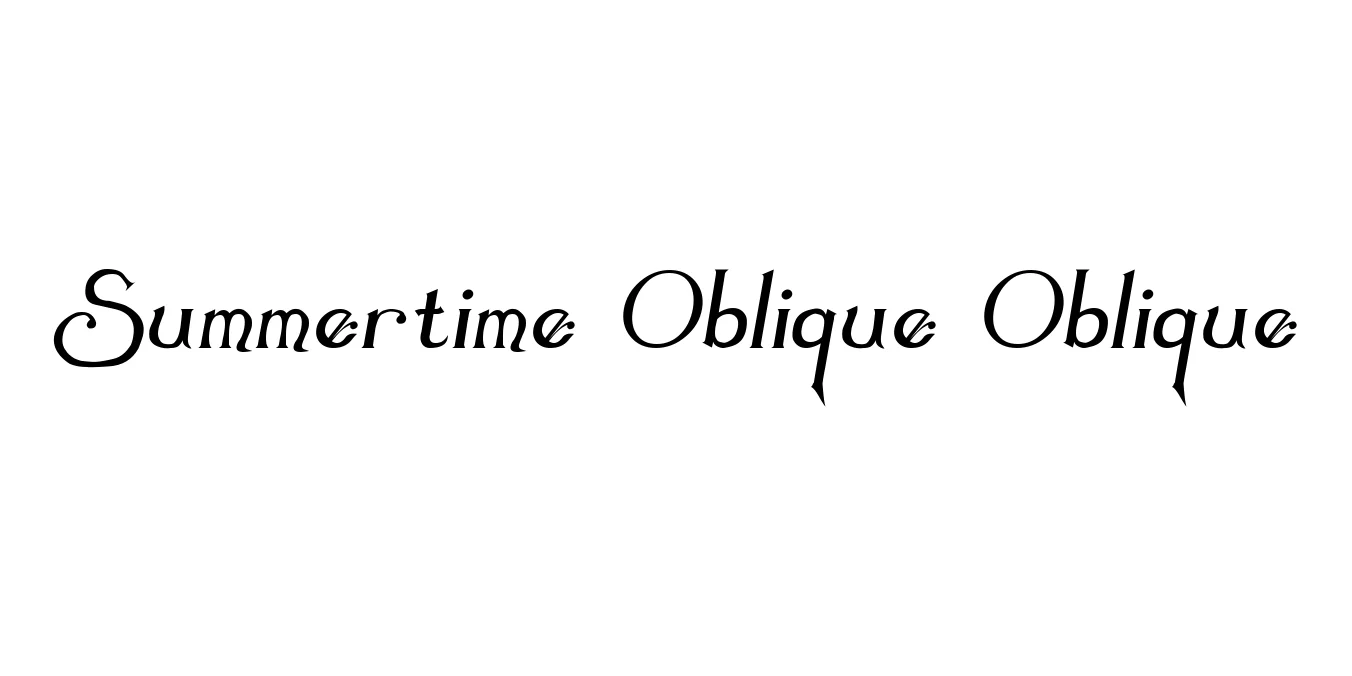
Summertime Oblique
Designed by Umut Pullu
| Category | Handwritten Script |
| Designer | Umut Pullu |
Summertime Oblique is a charming, handwritten-style typeface designed to capture the essence of a relaxed, sunny afternoon. Developed with fluid, rhythmic strokes, this font brings an authentic human touch to digital designs. The Oblique variation adds a distinct slant, providing a sense of motion and urgency while maintaining its laid-back, approachable character.
The typeface is particularly effective in designs that require a personal connection with the audience. Its organic curves and varied line weights make it a popular choice for lifestyle branding and informal communication. Whether used for a breezy social media graphic or a thoughtful greeting card, Summertime Oblique stands out for its clarity and aesthetic warmth.
Summertime Oblique Best Uses
Ideal for Instagram quotes and catchy Pinterest graphics.
Great for lifestyle brands looking for a personal, handmade feel.
Perfect for invitations, greeting cards, and personal notes.
Effective for summer-themed sales banners and promotional flyers.